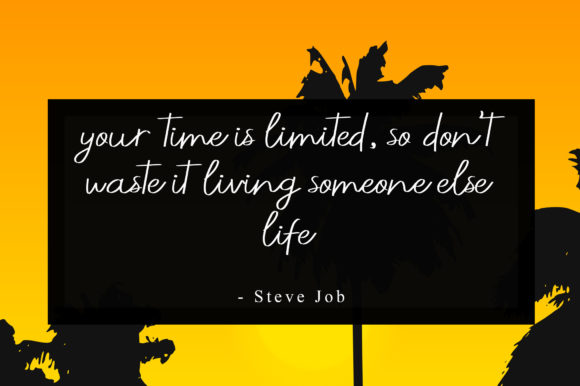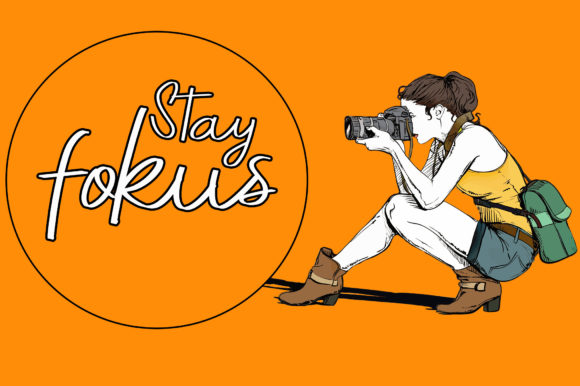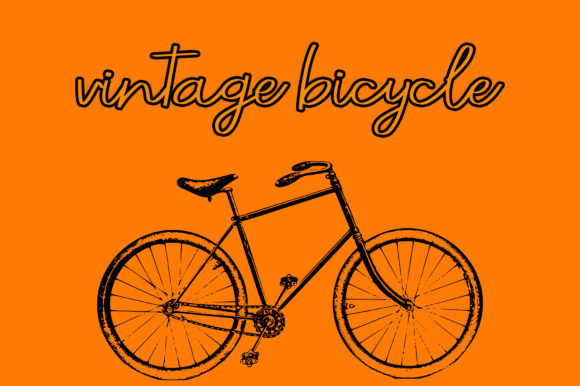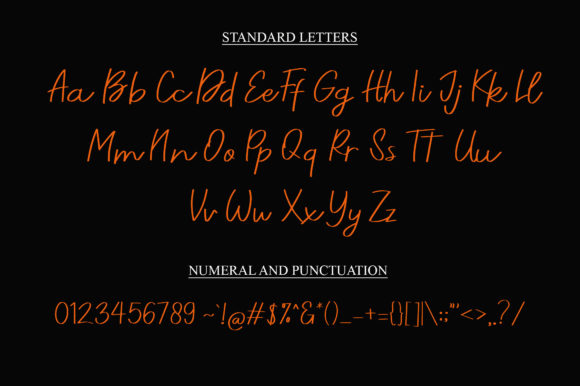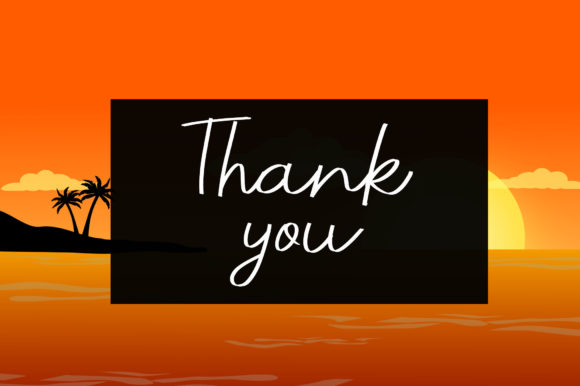
About Beautiful Beach Font
Beautiful Beach is a wonderful handwritten font. It has an authentic modern calligraphy look, making it perfect for branding and digital designs. Use this font for logos, social media, websites, blogs, wedding decor, home decor, invitations, and more!